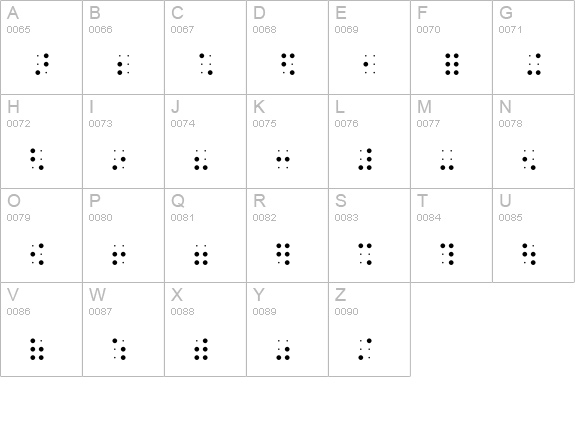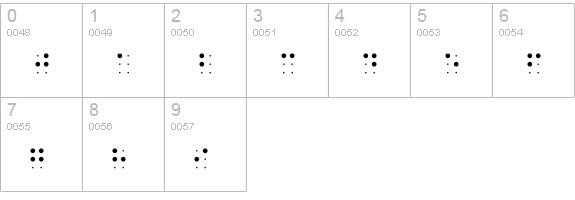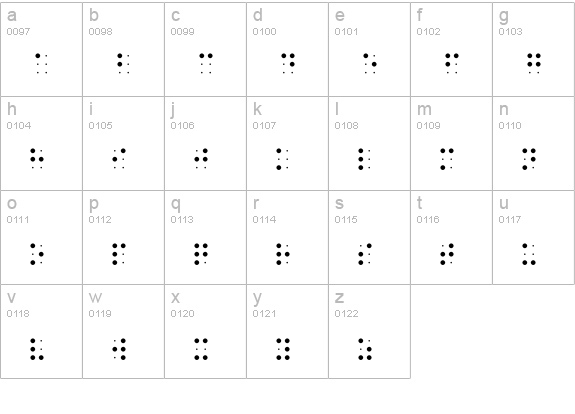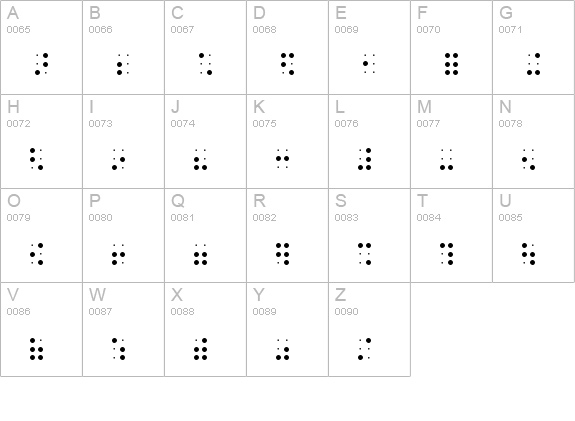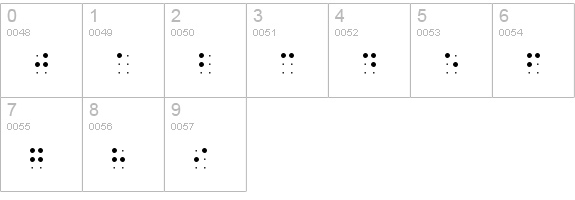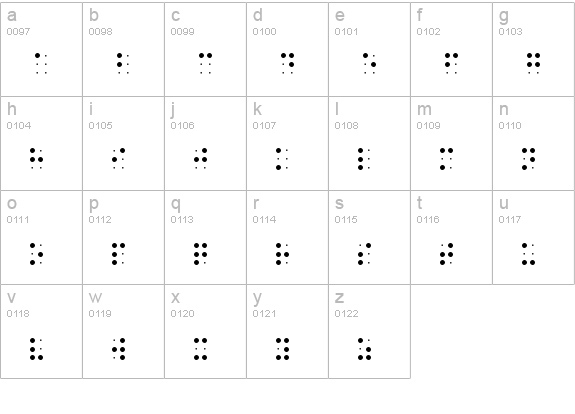
Braille-HC font is a unique and versatile typeface designed specifically for creating Braille-like text with a modern twist. This font is ideal for adding a tactile and visually appealing element to your designs, whether you're working on print materials, signage, or digital projects. With its bold and clear characters, Braille-HC font ensures readability and accessibility for all users. What's even better is that Braille-HC font is available for free download at FontsMarket.com. You can easily access this innovative font and start incorporating it into your projects without any cost. Embrace inclusivity and creativity by using Braille-HC font to make your designs stand out and resonate with a wide audience. Download this font today and take your typography to the next level!